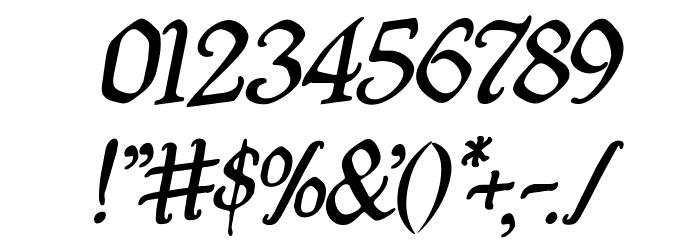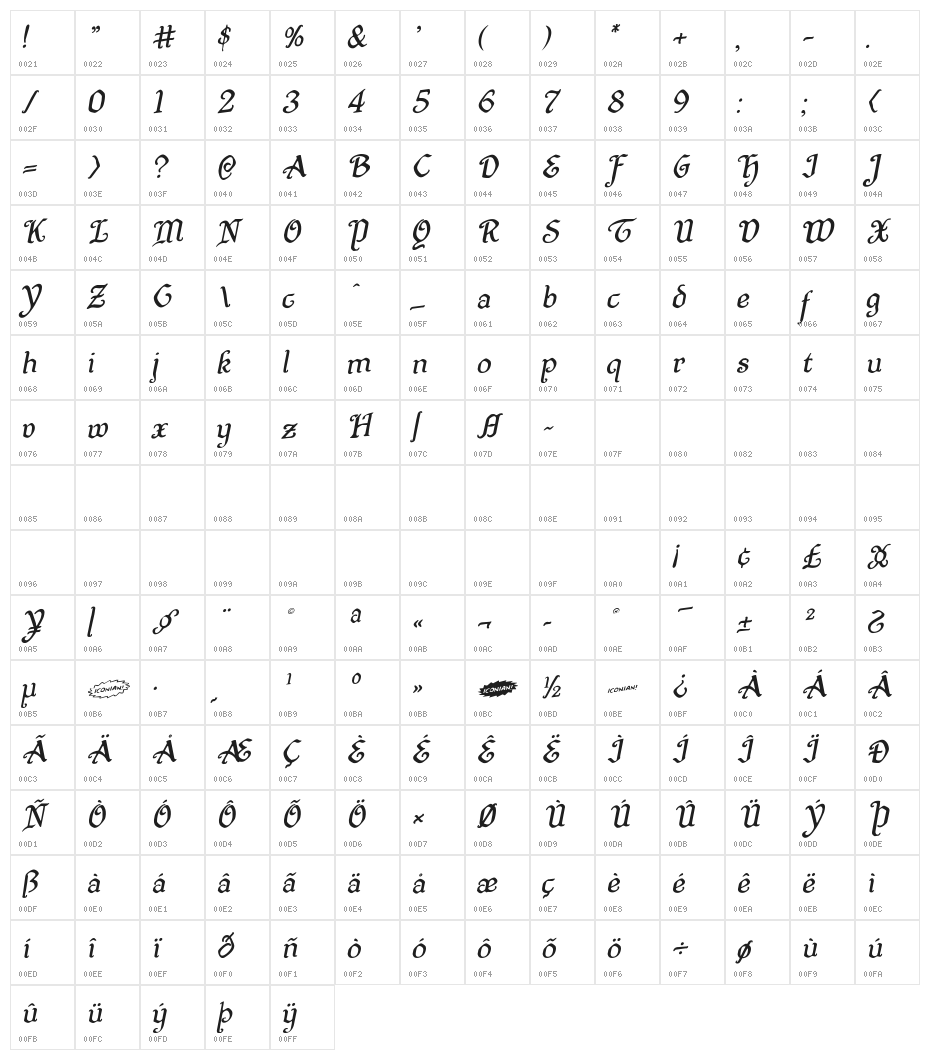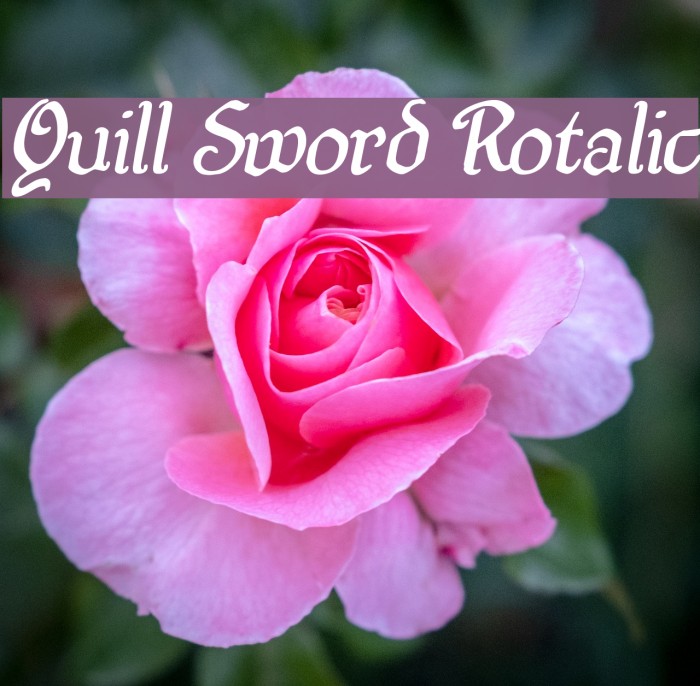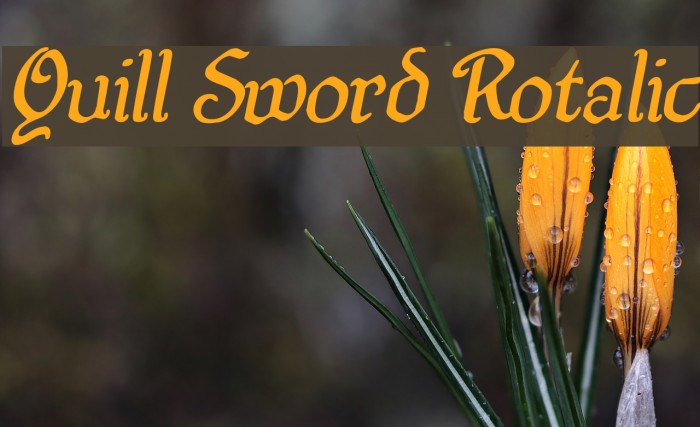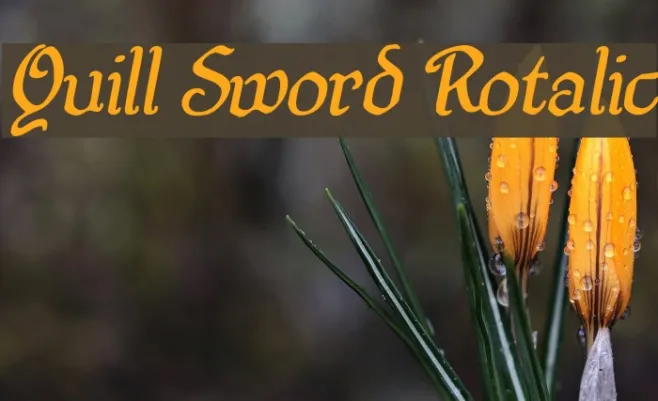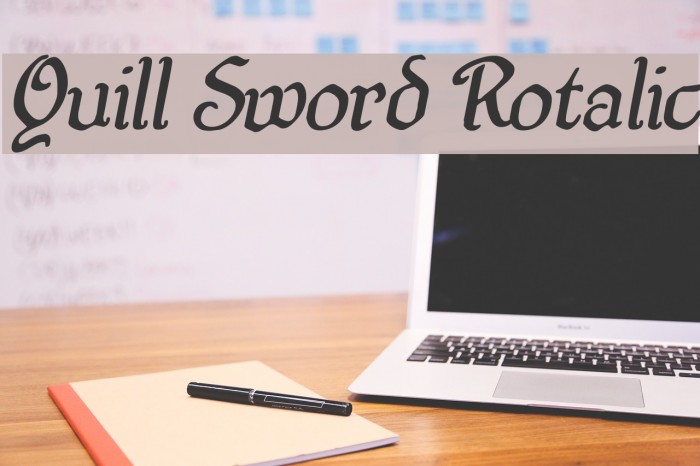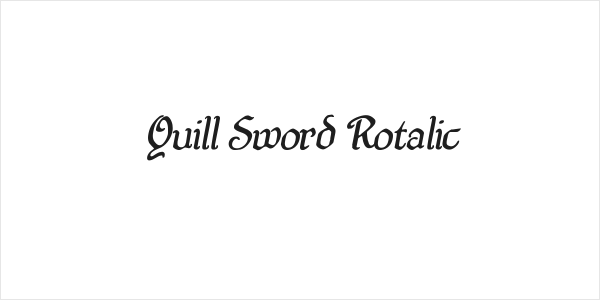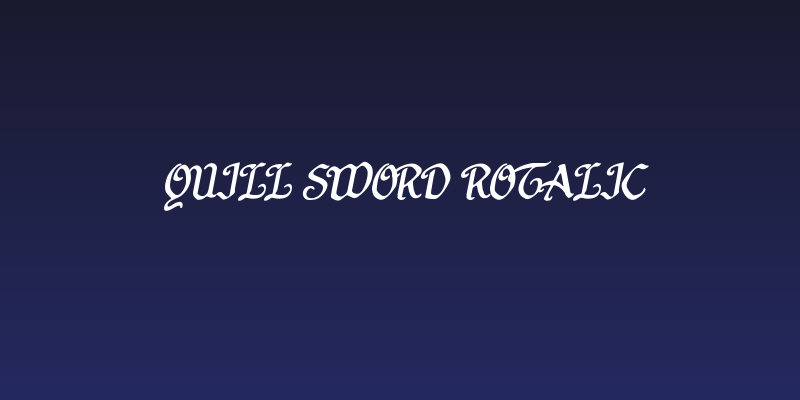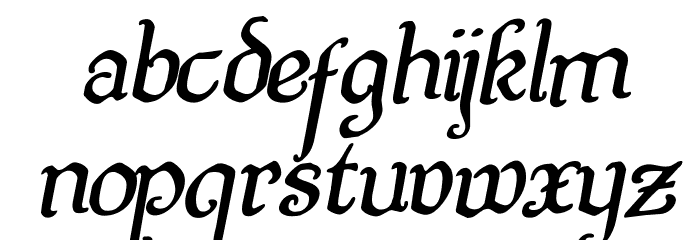
Quill Sword Rotalic Font
Quill Sword Rotalic Description
This font features a distinctive calligraphic style with elegant, flowing strokes that evoke a sense of historical sophistication. The uppercase letters are bold and ornate, with intricate curves and flourishes that add a touch of drama. The lowercase letters maintain a consistent style, with smooth connections and a slight slant that enhances readability. The numerals are equally stylized, offering a cohesive look across all characters. Special characters are designed with the same attention to detail, ensuring they blend seamlessly with the rest of the typeface. This font is perfect for projects that require a touch of elegance and tradition.